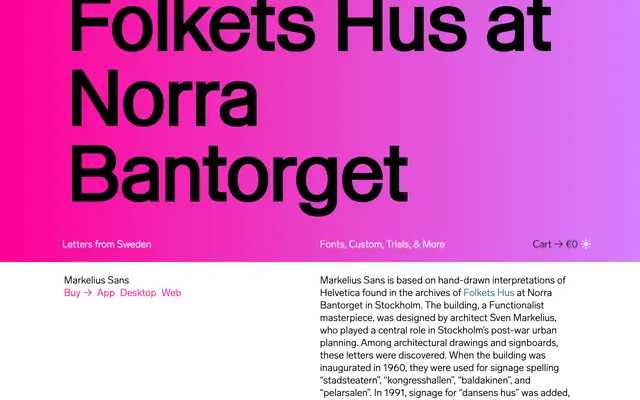
Markelius Sans
A grotesque drawn from hand-lettered Helvetica approximations found in the 1960s signage archives of Sven Markelius's Folkets Hus in Stockholm.
Digitised directly from original signboards at a landmark Stockholm Functionalist building, each letterform carries the slight irregularity of hand-drawn craft that no purely geometric construction would produce. Four weights with italics span from regular to black, and a variable version is included alongside a unicase stylistic set and four arrow sets aligned to both lowercase and capital heights. Commissioned by Figur for the 2025 reopening of Folkets Hus, the typeface carries a specific institutional and architectural history rather than the neutrality its grotesque lineage might suggest.
Derived from hand-drawn Helvetica interpretations found in a 1960s Functionalist building, placing it firmly in the grotesque sans-serif tradition with the irregular warmth of vernacular signage lettering.